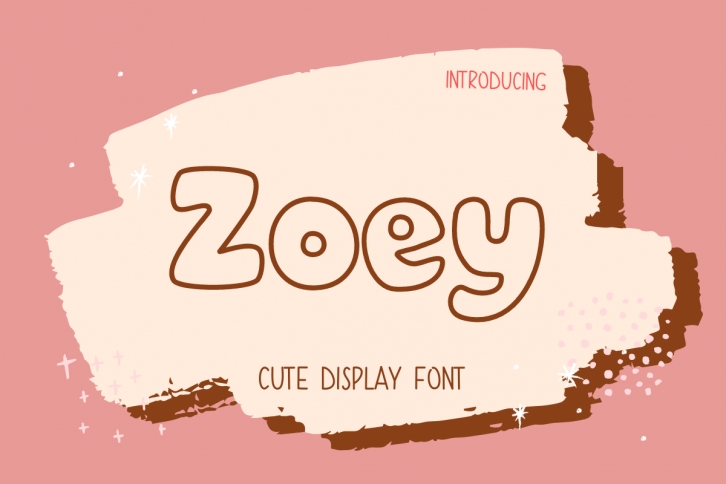
Zoey is a display font with bold transparent lines. You can use it to design a large, distinctive product that looks unique and beautiful. You can use it to create Valentine cards, wedding invitations, beautiful stationery art, social media posts, and more!